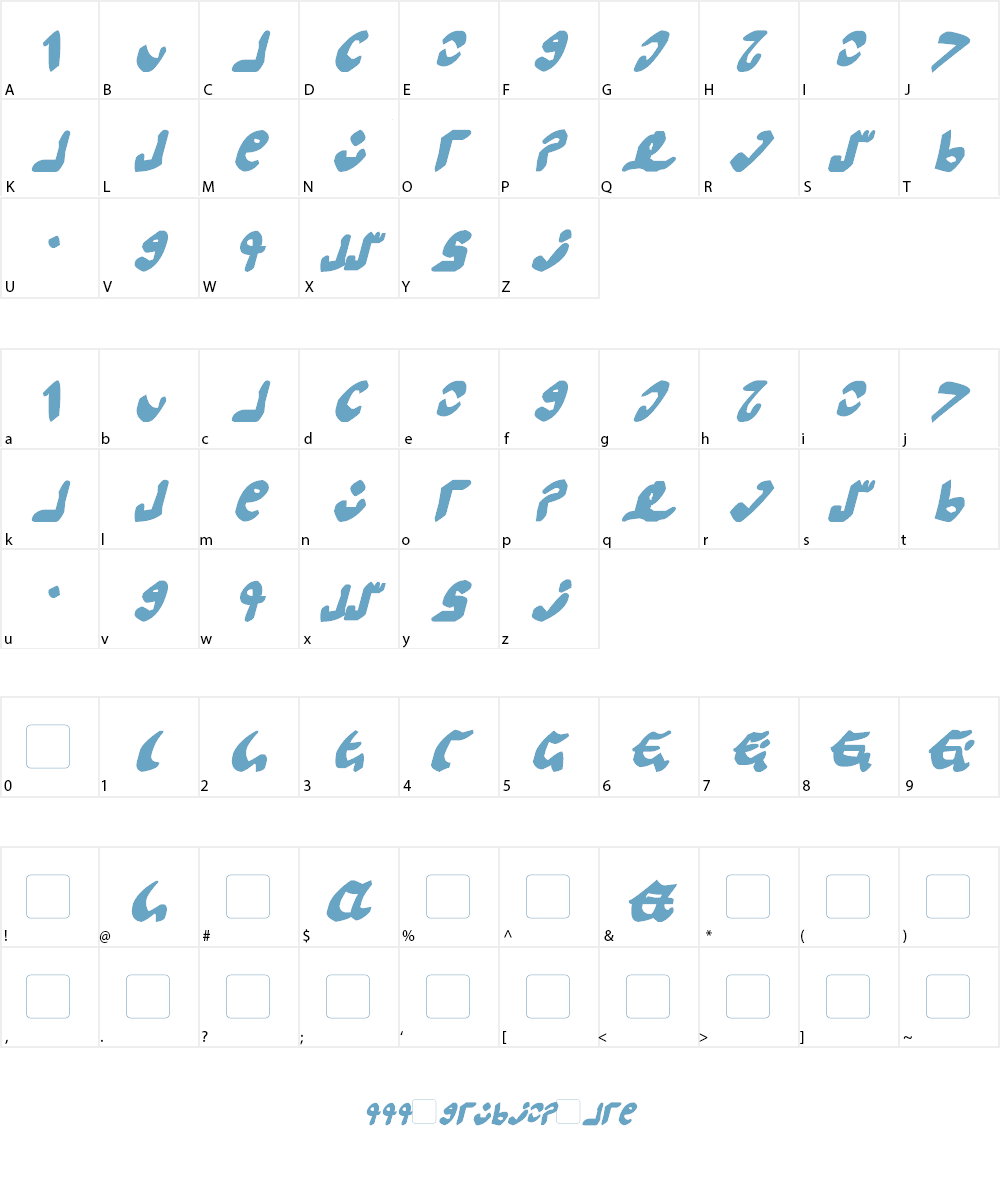
Semphari is lightly flourished script based on the “oriental” language presented in Wizard’s of the Coast’s Forgotten Realms Hordelands (second edition). Includes all canon glyphs. Includes regular, bold, italic, and bold-italic weights.